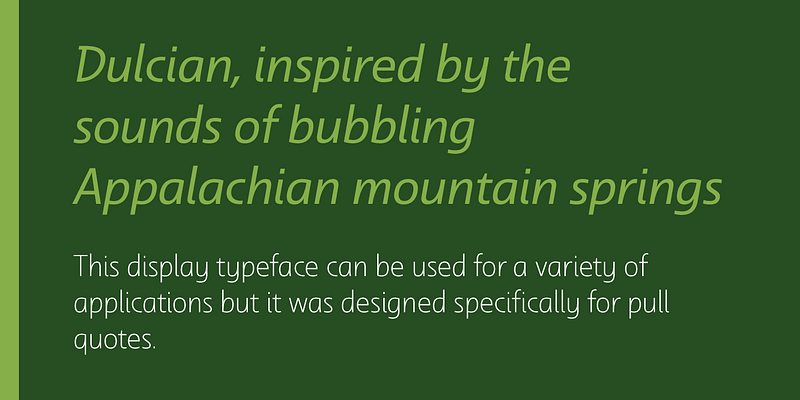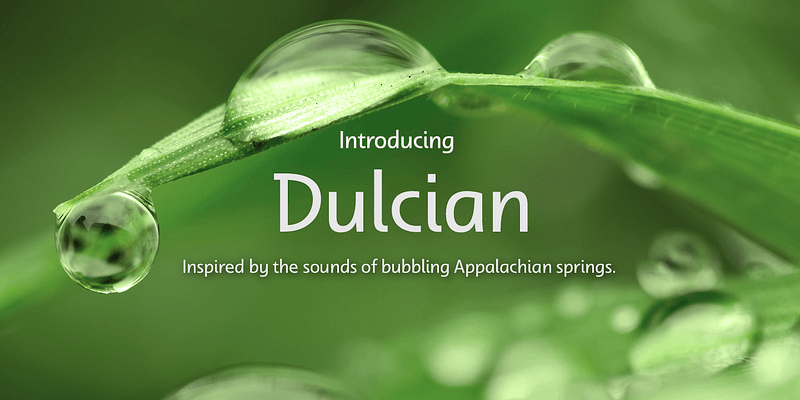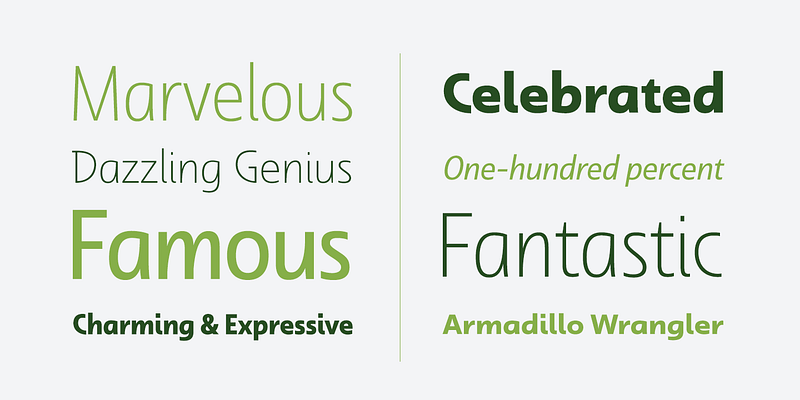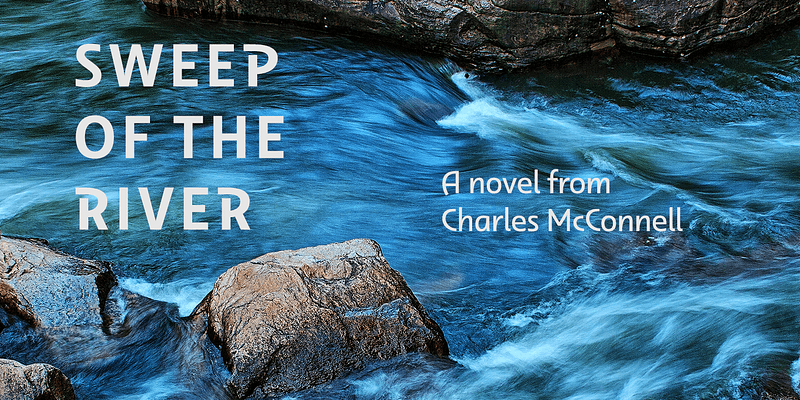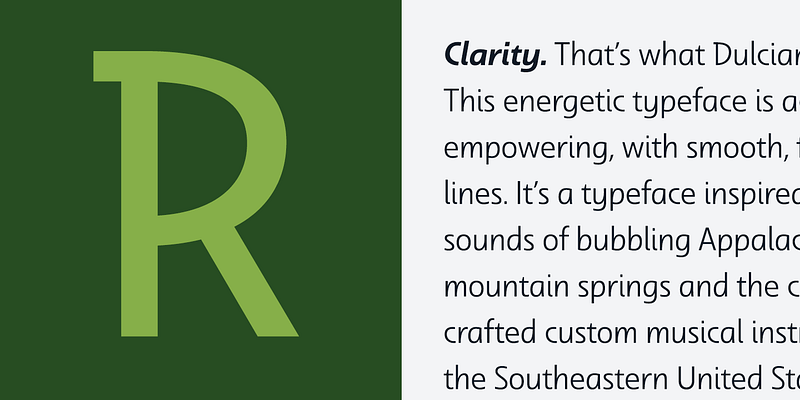
Inspired by the Appalachian culture of the Southeastern United States, the finely tuned forms of Dulcian strike a clear, empowering chord with your audience.